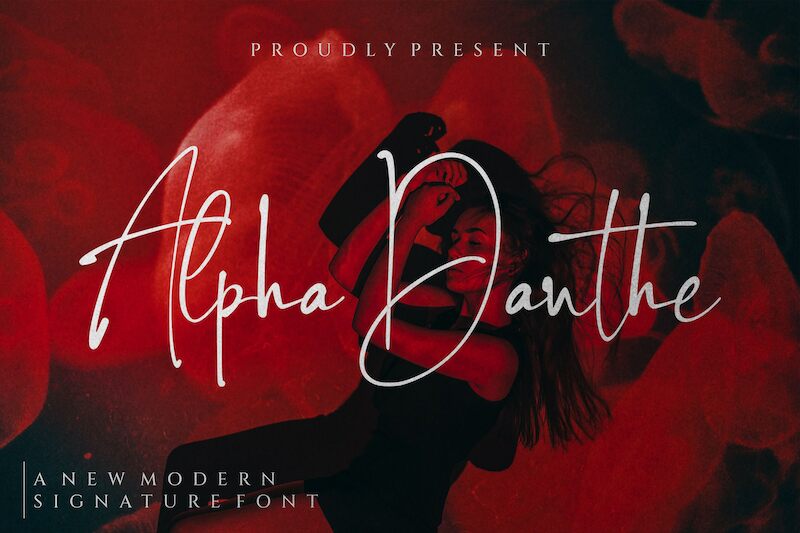
Alpha Danthe PERSONAL USE Italic
Alpha Danthe Italic font is a light signature typeface designed by Mans Greback.
Use { } around any word to make decorations.
Example: {wonder}
Use underscore _ after any word to make a swash.
Example: Beautiful_